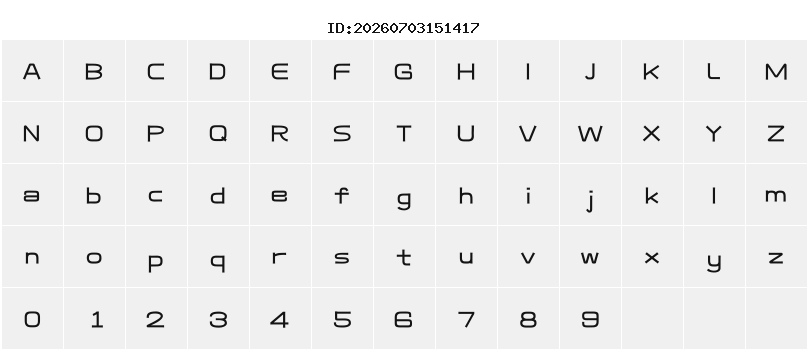
About 307-上首润元体.ttf
307-上首润元体.ttf is a modern, elegant sans-serif font designed for ultimate readability and visual harmony. Perfect for branding, headlines, web design, and print materials.